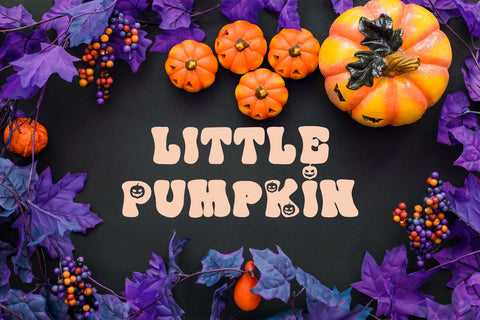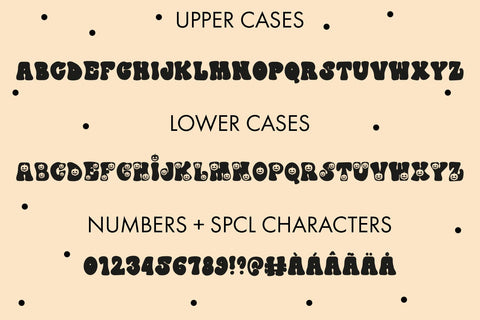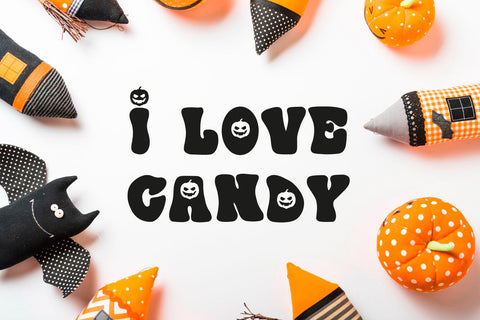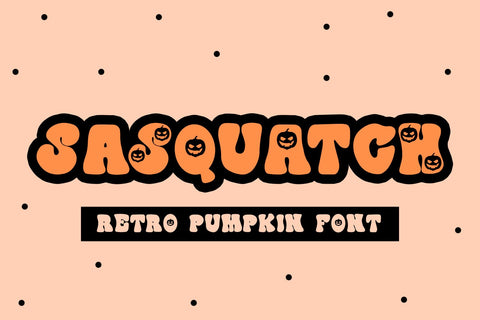
Sasquatch - A Retro Halloween Font
Get ready to unleash the nostalgia with Sasquatch, the Retro-Inspired Halloween Font featuring Pumpkin-Carved Letters!
Dive into the enchanting world of vintage Halloween aesthetics with Sasquatch, the font that effortlessly blends retro vibes with spooky charm. This font will transport you back to the golden era of trick-or-treating and haunted house adventures, all while showcasing the whimsical addition of pumpkins carved into select letters.
- Sasquatch - Comes with Uppercase A-Z and lowercase a-z letters, 0-9 numbers, stylistic alternates, limited punctuation and supports Western European Languages